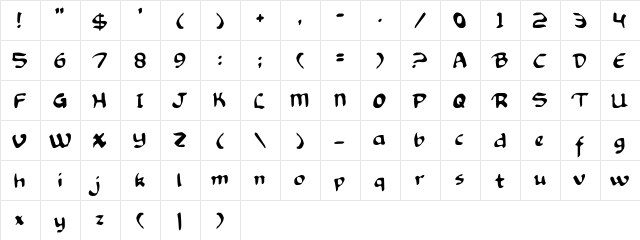
Knights Templar Regular
Design Context for Knights Templar Typeface
Knights Templar is a composed and adaptable typeface that performs quietly and consistently across a wide range of design contexts.
Pro Tip: Use Knights Templar in both headline and body roles to test its range before committing to a single application.